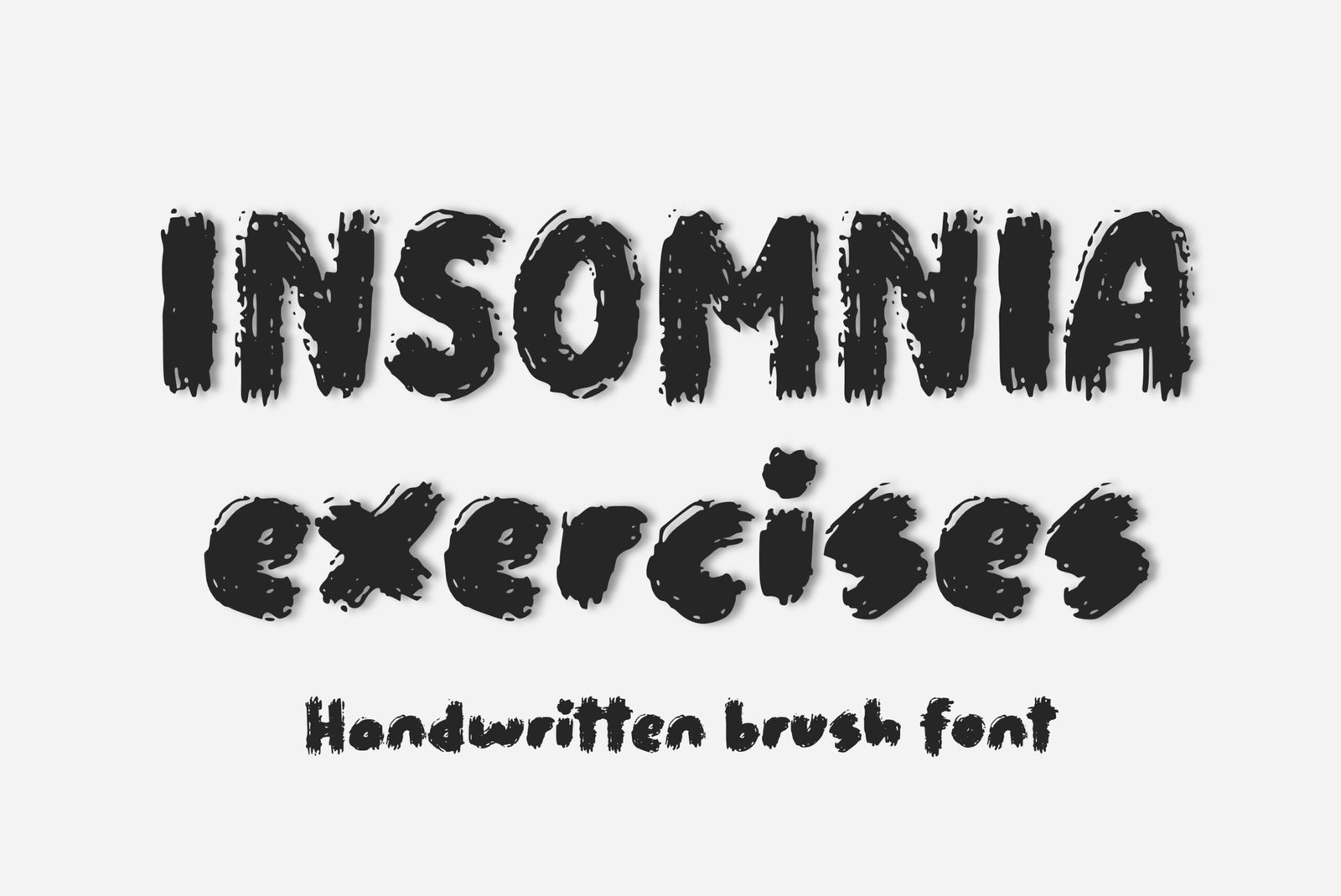
Insomnia Exercises Font
Handwritten brush font. “Insomnia Exercises”. Perfect for advertising and display purposes, including banners, book covers, shirts, posters, logos and much more!
Font includes all upper and lowercase letters, numbers, characters, and punctuation.